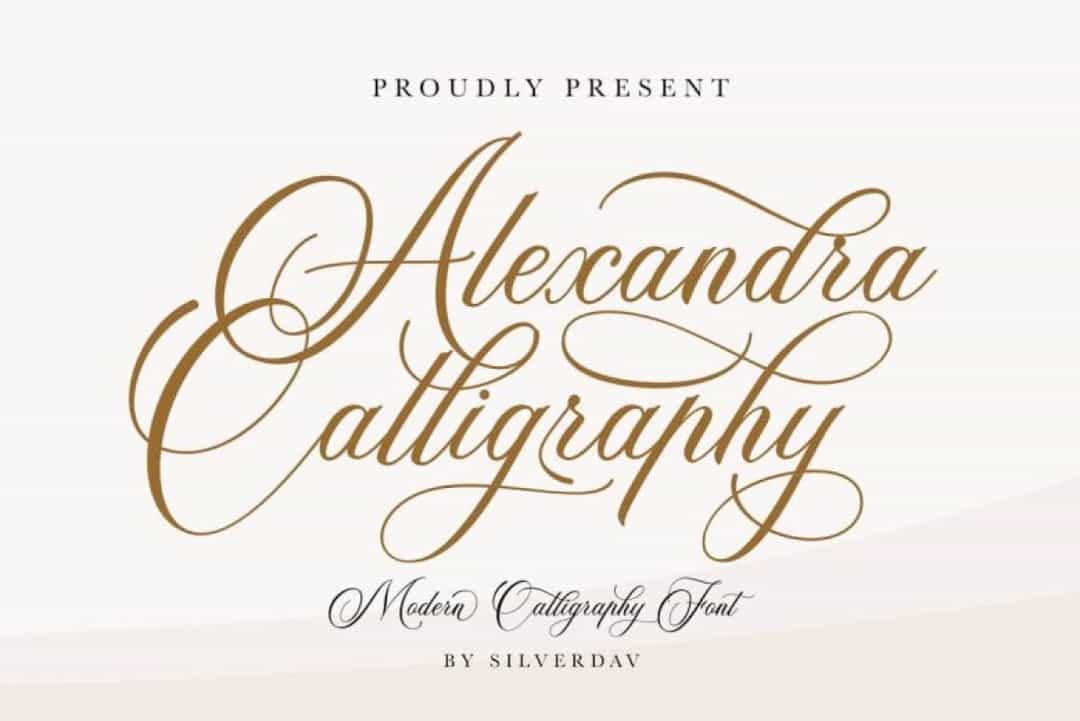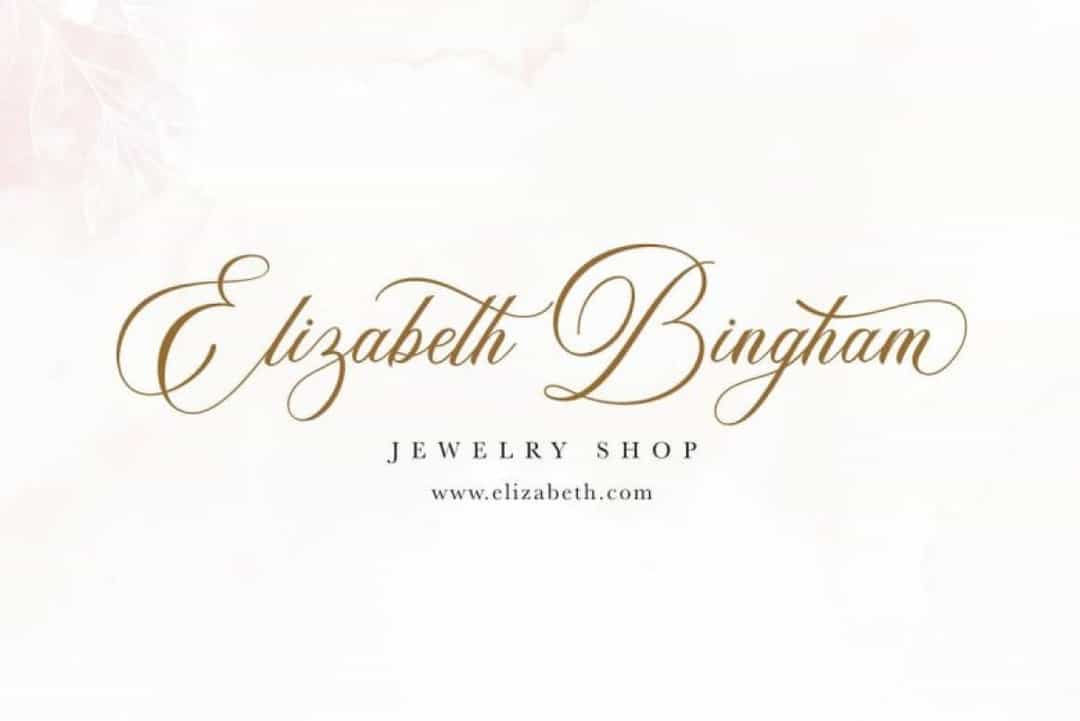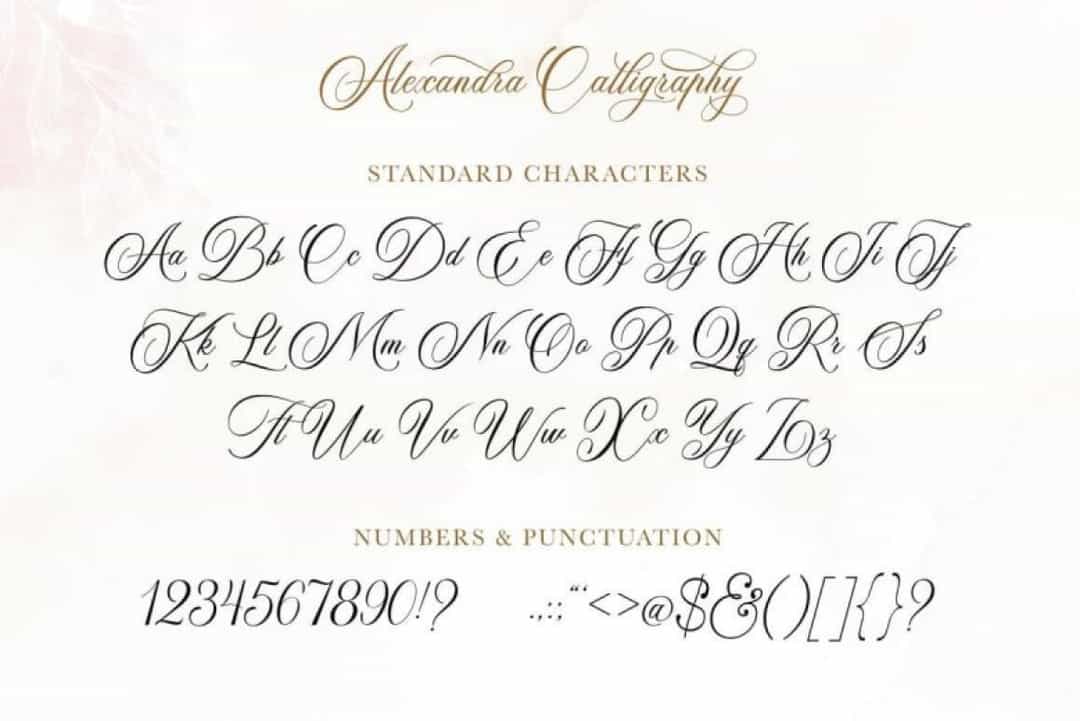
Alexandra Calligraphy is a unique calligraphy font designed to enhance and beautify designs of all kinds, making them more appealing and attractive. Alexandra Calligraphy boasts elegant strokes which convey a feeling of luxury; an ideal font choice to enhance designs of all kinds!